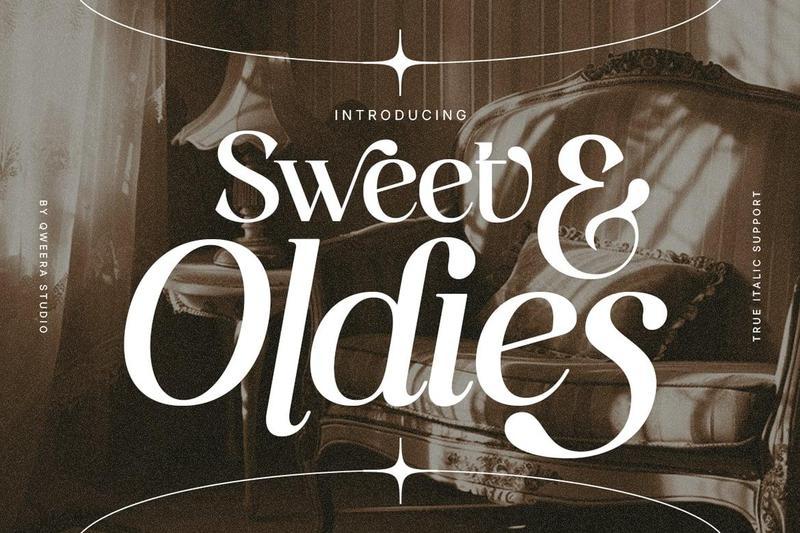
**Sweet & Oldies** is a vintage luxury serif typeface designed to bring nostalgic elegance and timeless sophistication into modern creative projects. Featuring refined letterforms, stylish alternates, graceful ligatures, and true italic support, this font creates a classic typographic presence with premium charm.
Sweet & Oldies blends old-world beauty with modern usability, making it an excellent choice for designers who want classic serif typography with a refined luxury character.
**Features**
– Uppercase & lowercase
– Alternates & ligatures
– Multilingual support
– Professional kerning
– Regular & True Italic